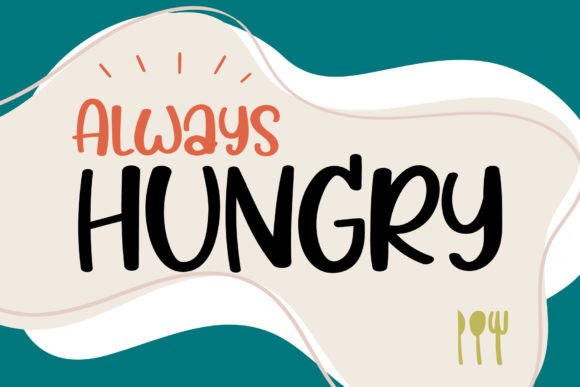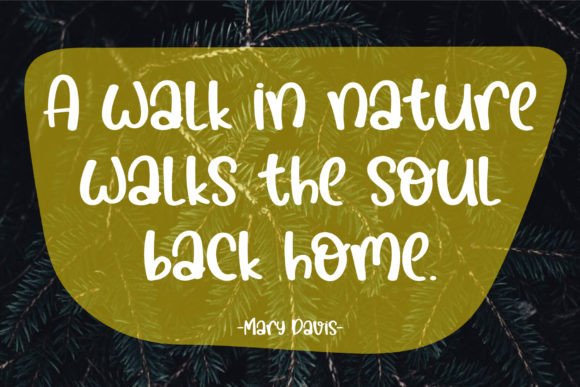
About Pietro Font
Pietro is a simple, joyful handwritten font. Its casual charm makes it appear wonderfully down-to-earth, readable and, ultimately, incredibly versatile. This will look outstanding in any context, whether it’s being used on busy backgrounds or as a standalone headline!